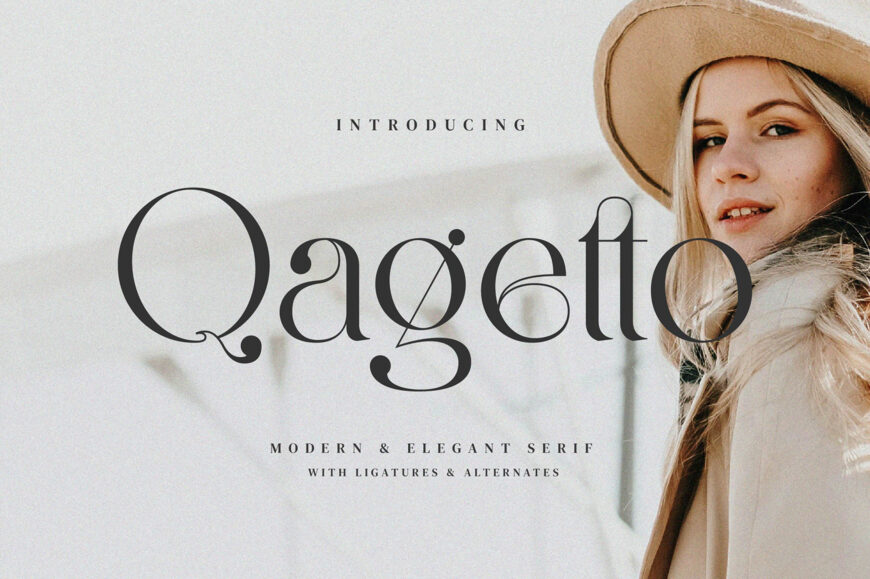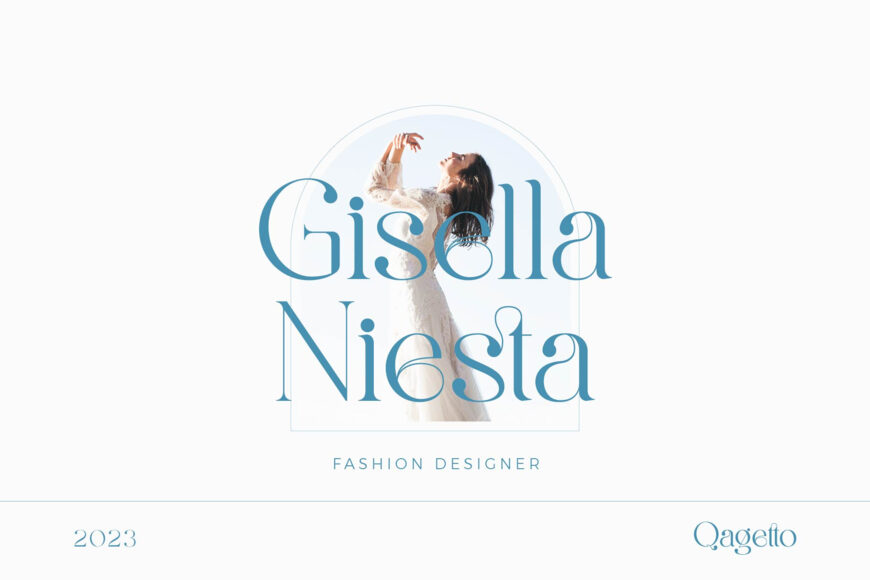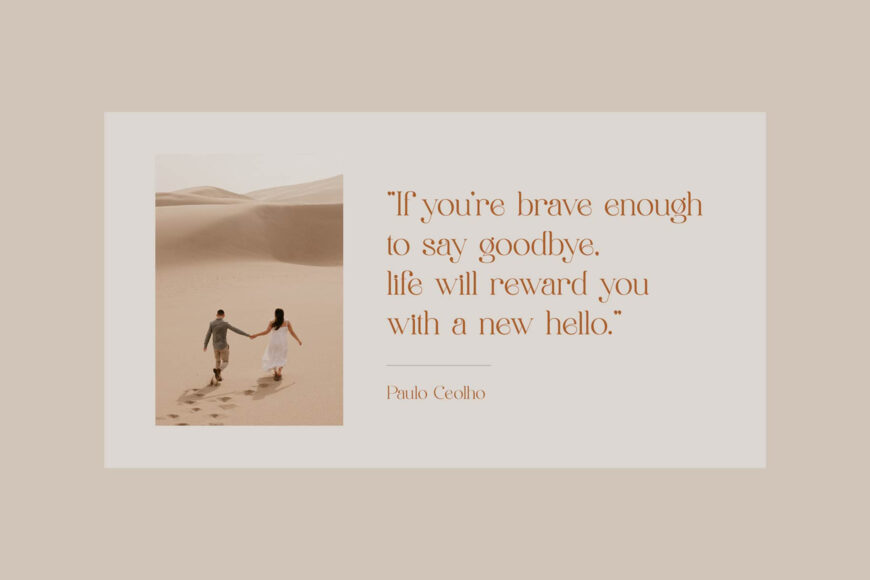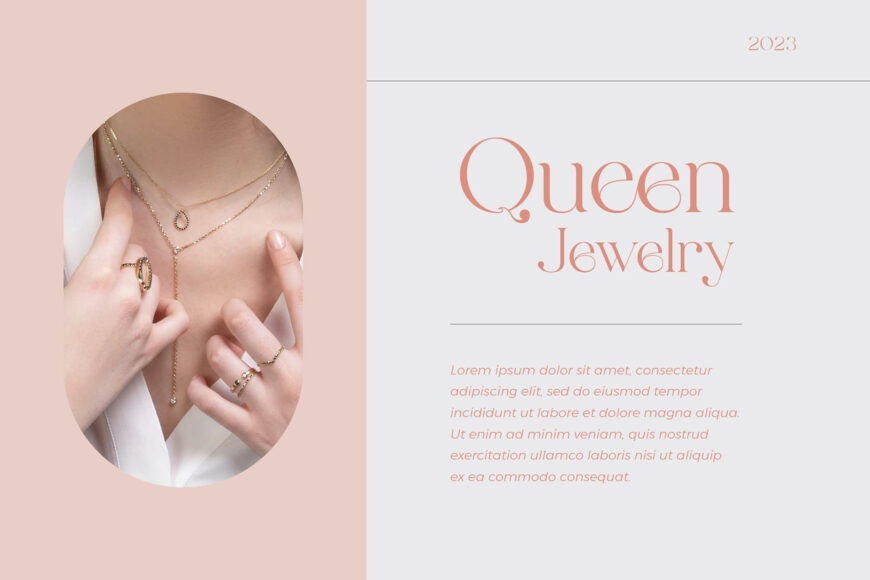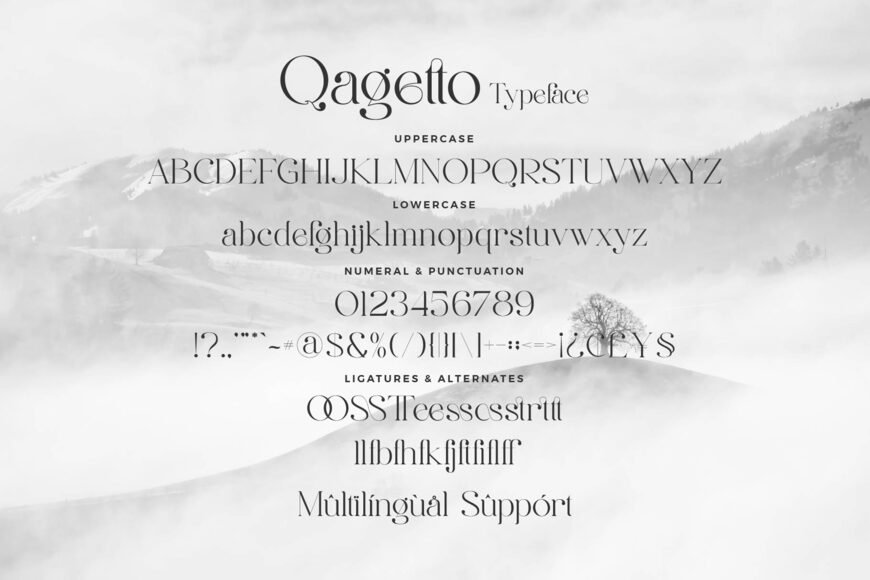
Qagetto Font
Qagetto is a sleek, modern serif font drawing inspiration from minimalist design. It’s ideal for creating templates, brochures, videos, and fashion products, as well as crafting eye-catching headlines, advertisements, logos, and brand identities.